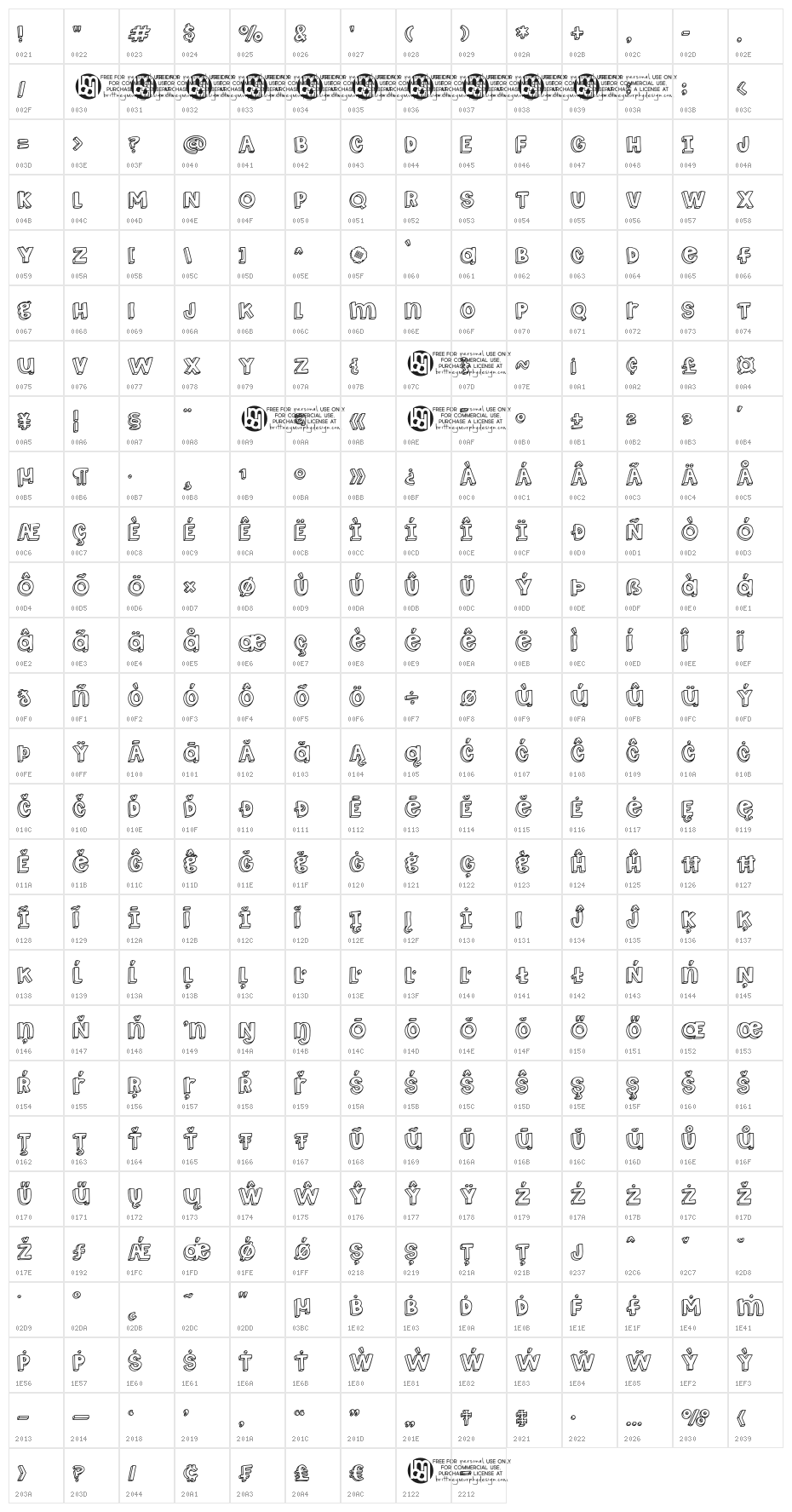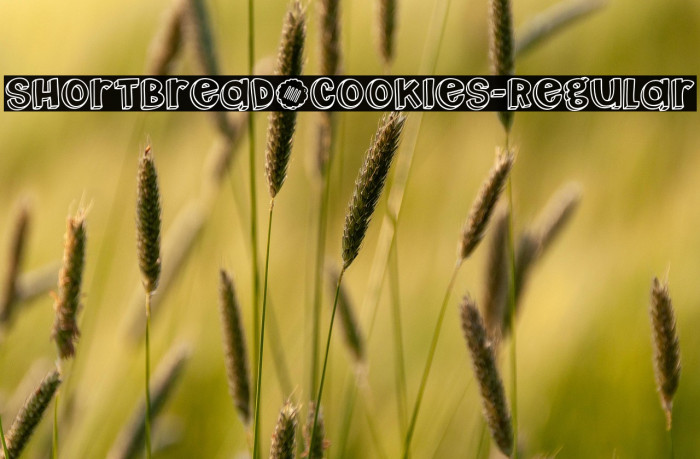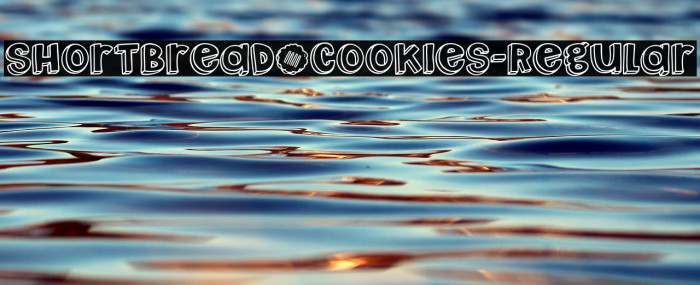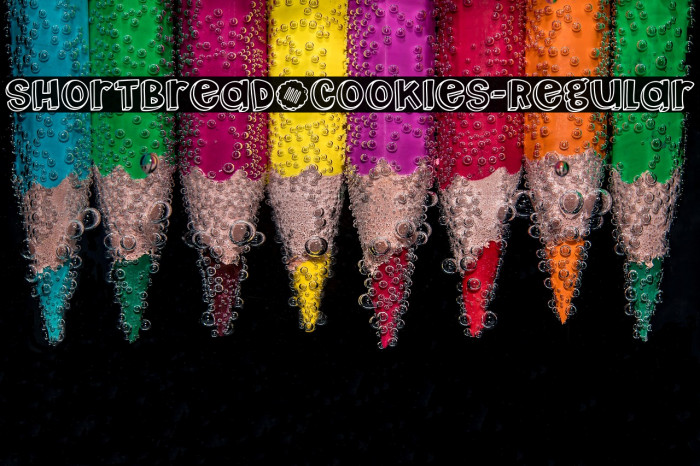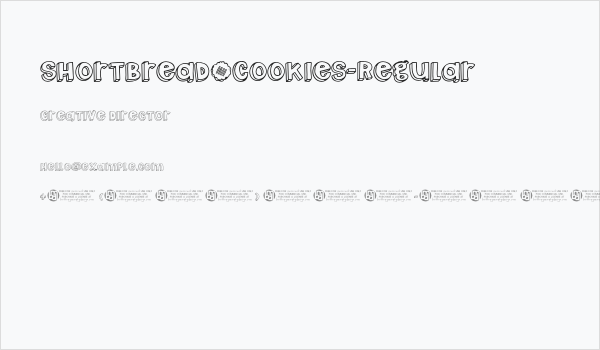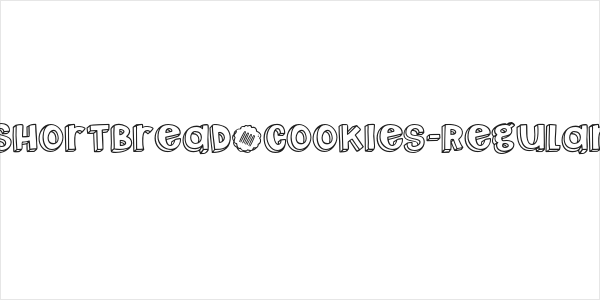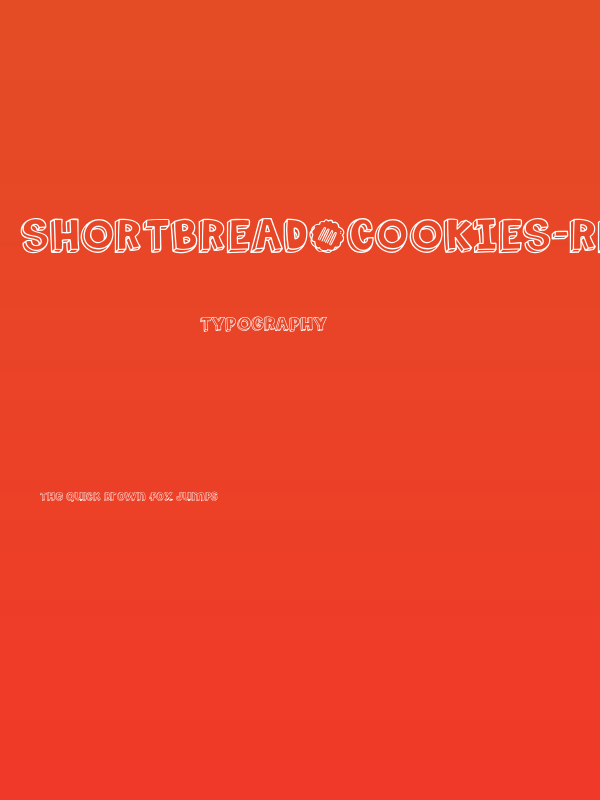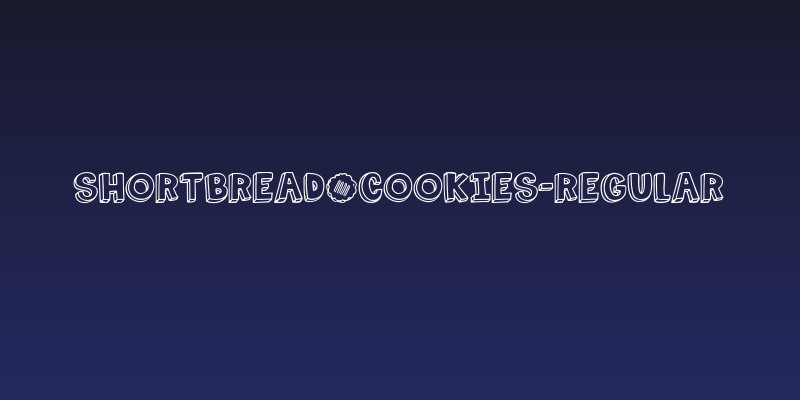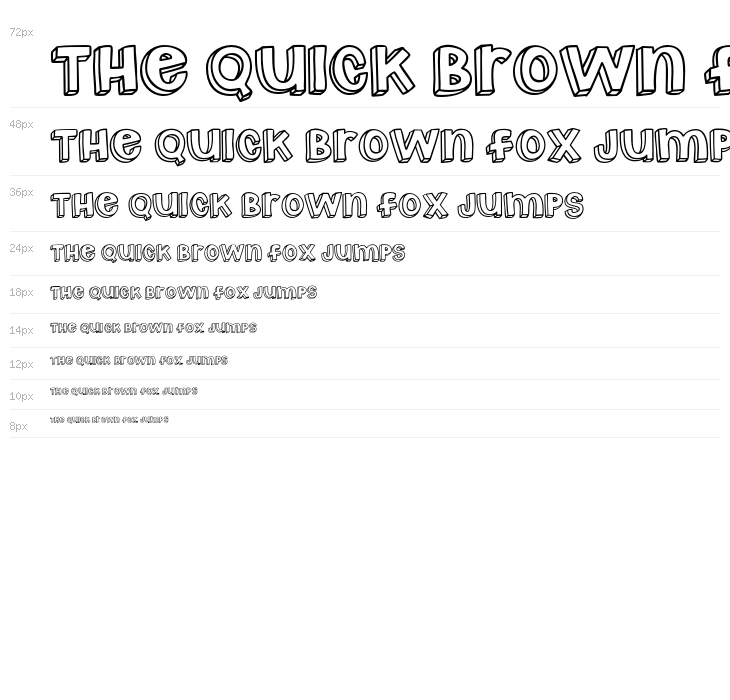
Shortbread_Cookies-Regular Font
Shortbread_Cookies-Regular Description
This playful and bold font features a unique hand-drawn style with thick outlines that give it a cartoonish and fun appearance. Each character is designed with a sense of whimsy, making it ideal for creative and informal projects. The uppercase and lowercase letters maintain a consistent style, with rounded edges and a slightly irregular form that adds to its charm. The numbers and special characters are equally distinctive, ensuring a cohesive look across all text elements.
| Overall Style | Playful, Cartoonish |
| Proposed Projects | Perfect for children's books, comic strips, playful branding, and party invitations. |